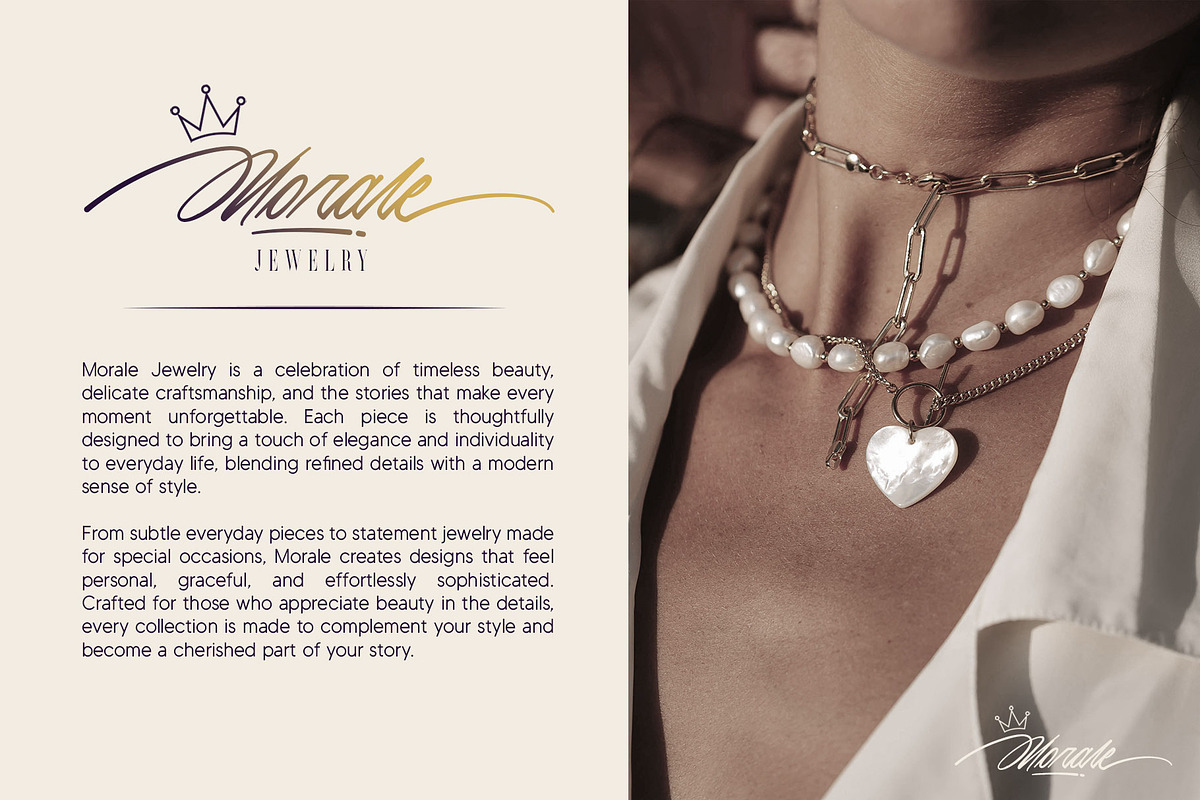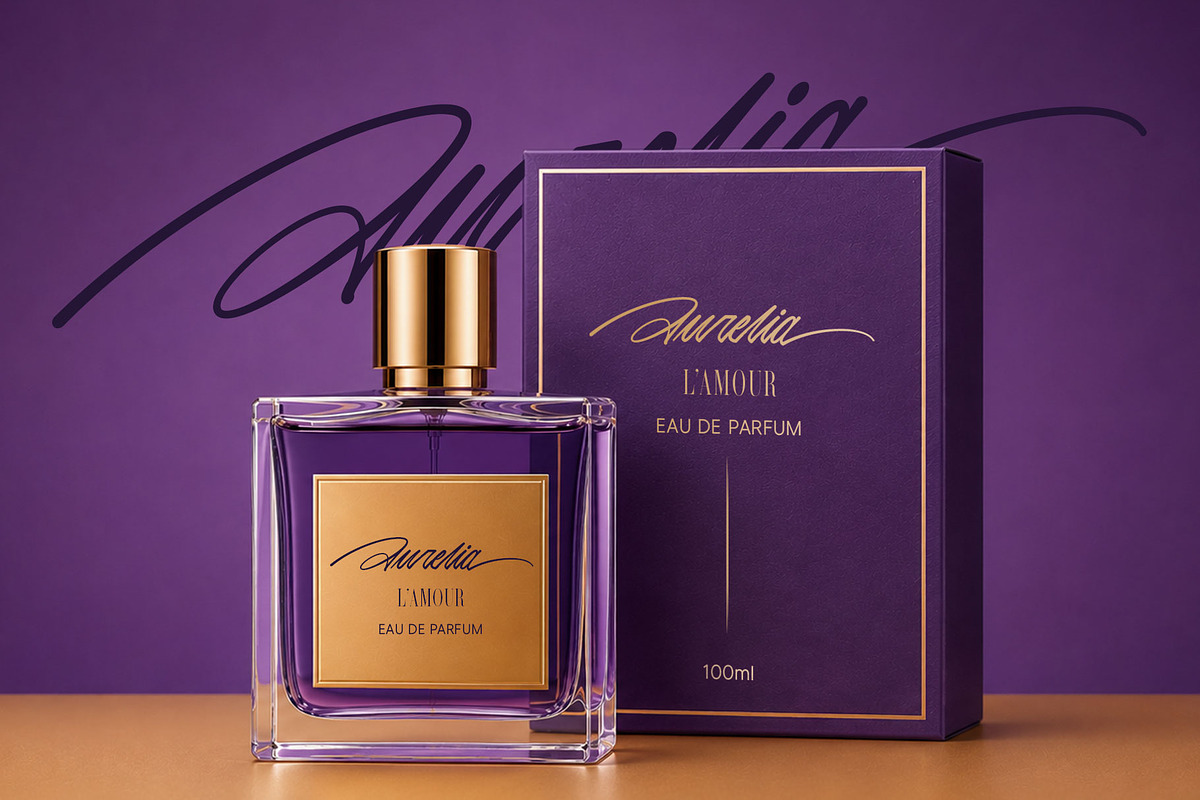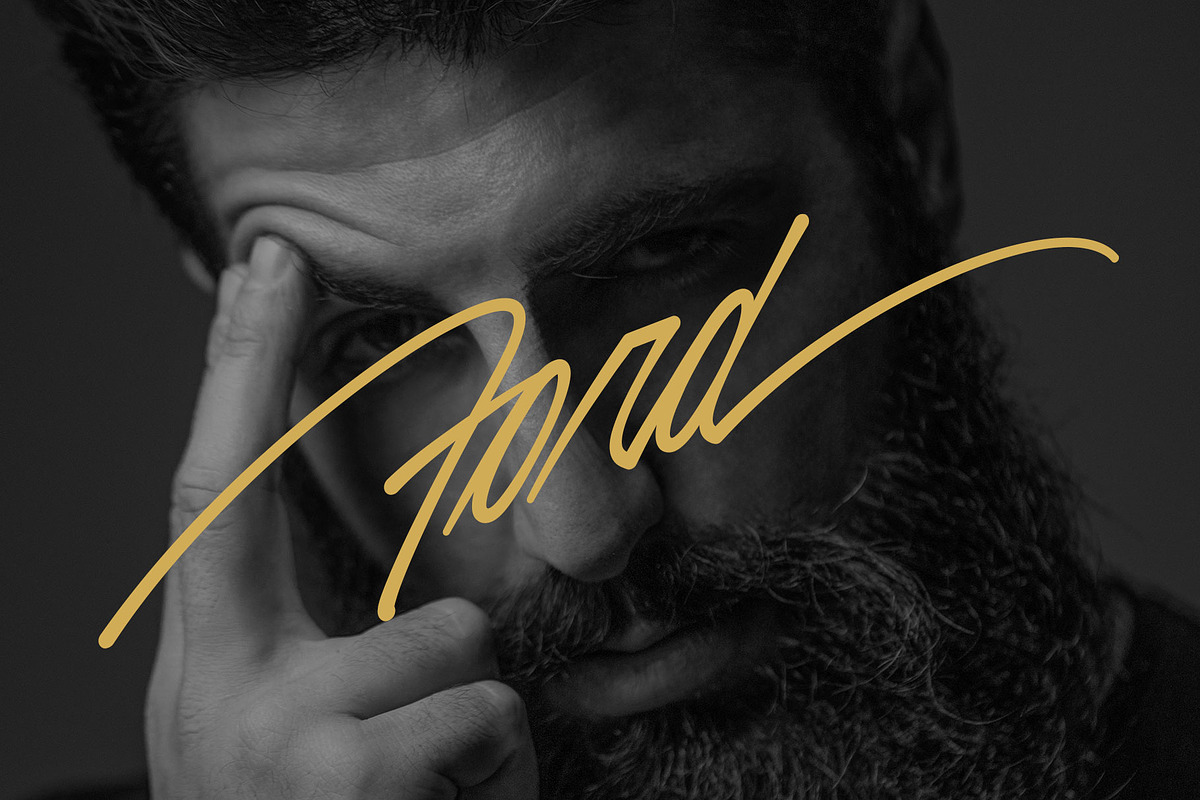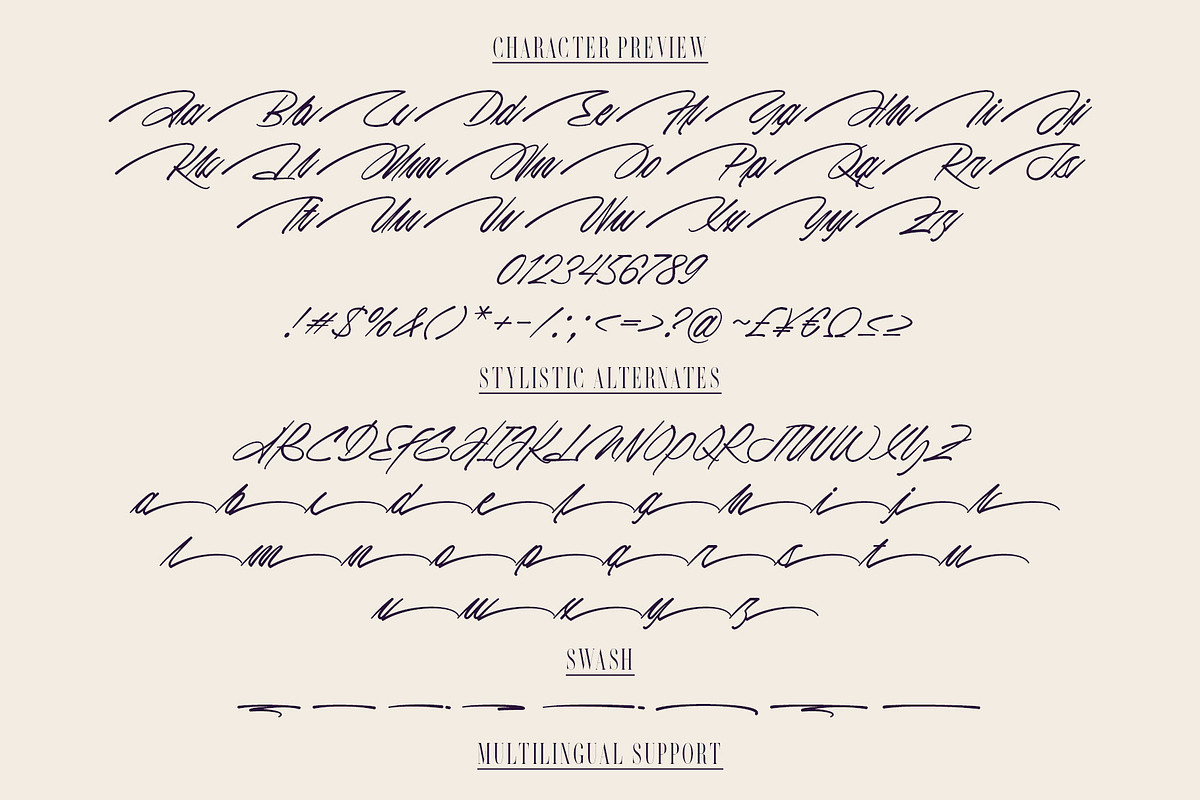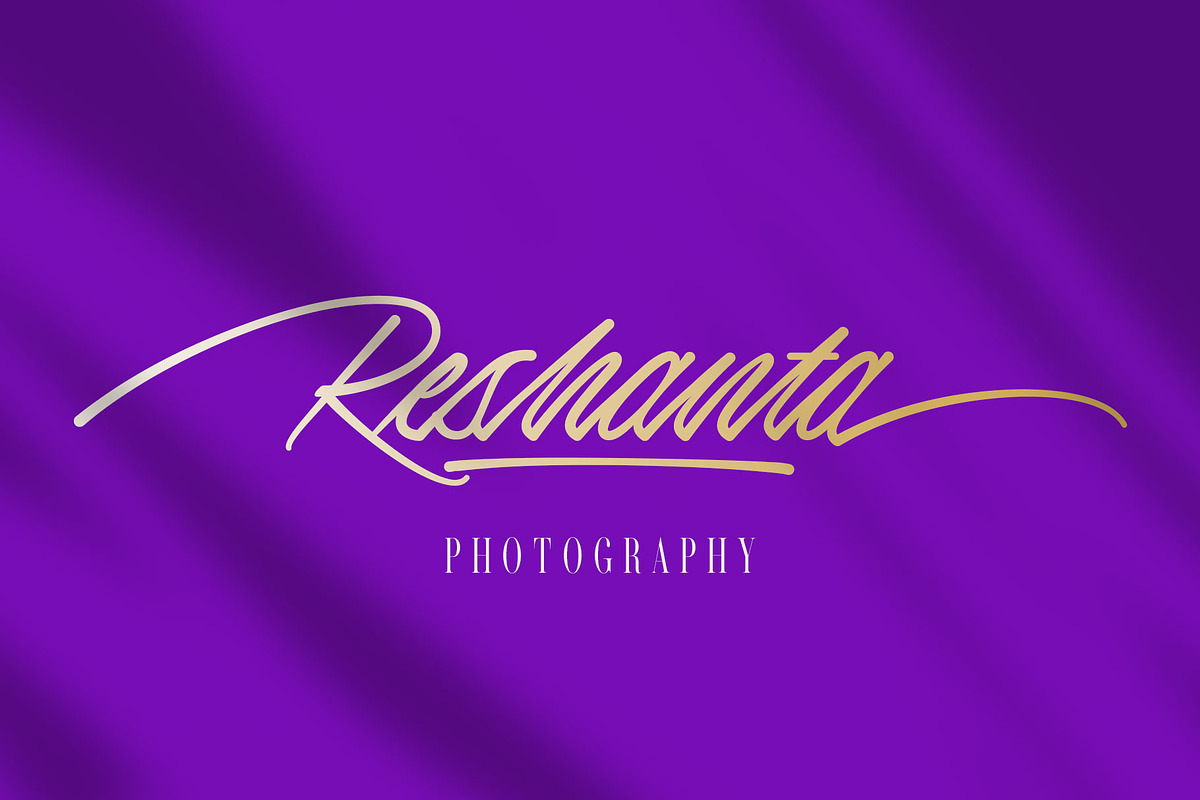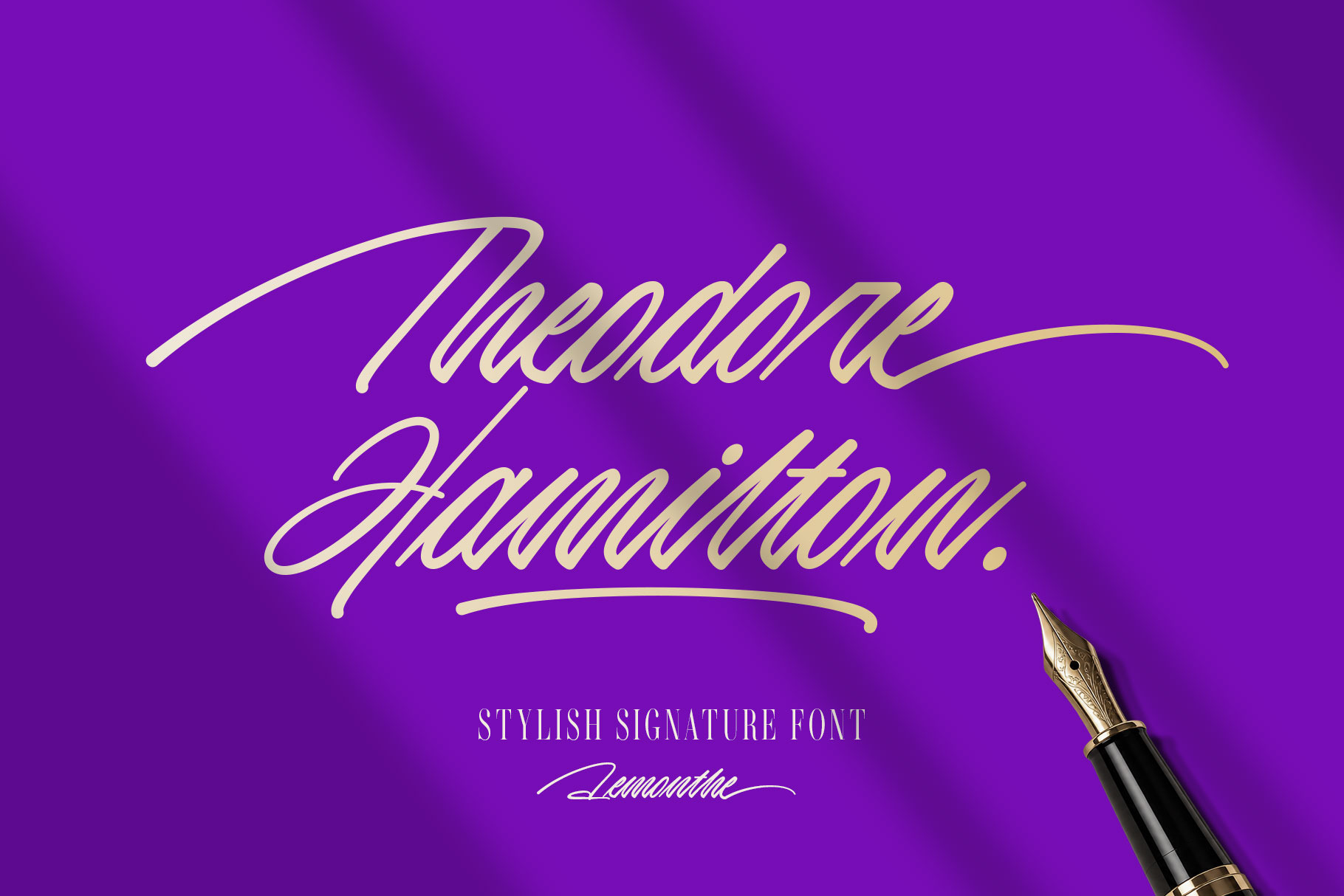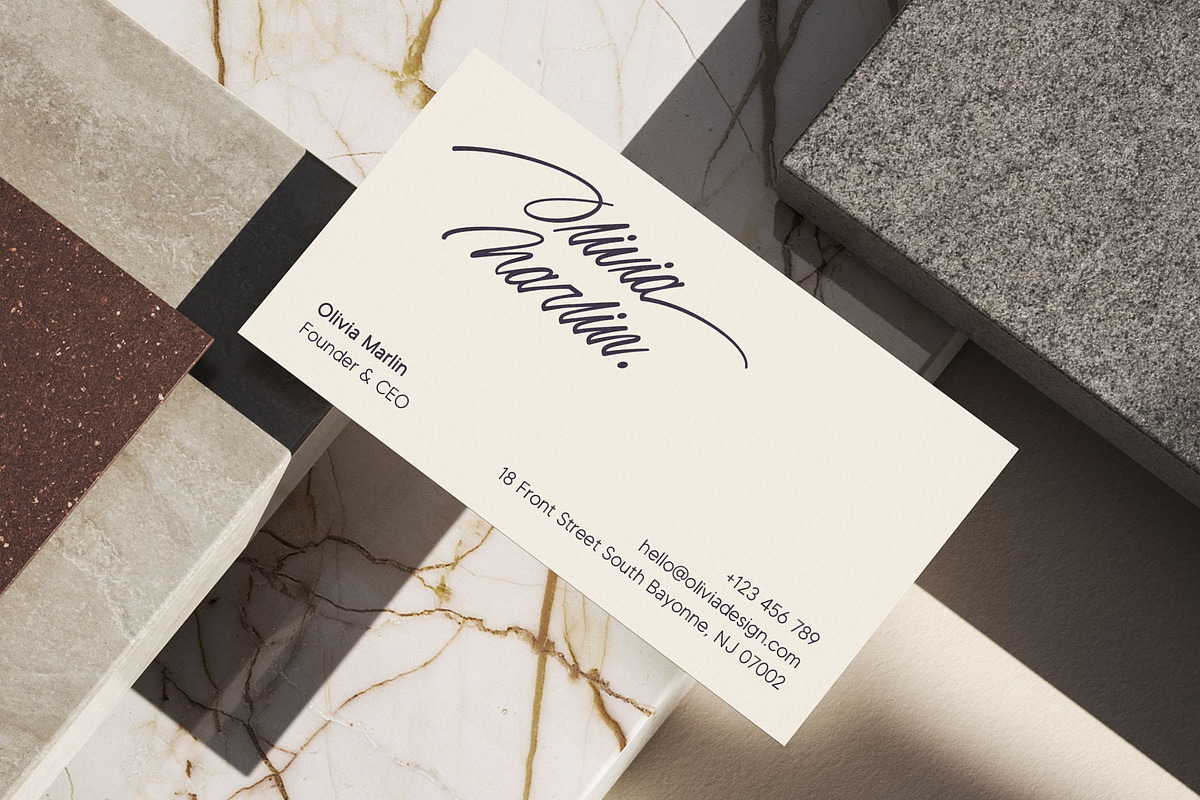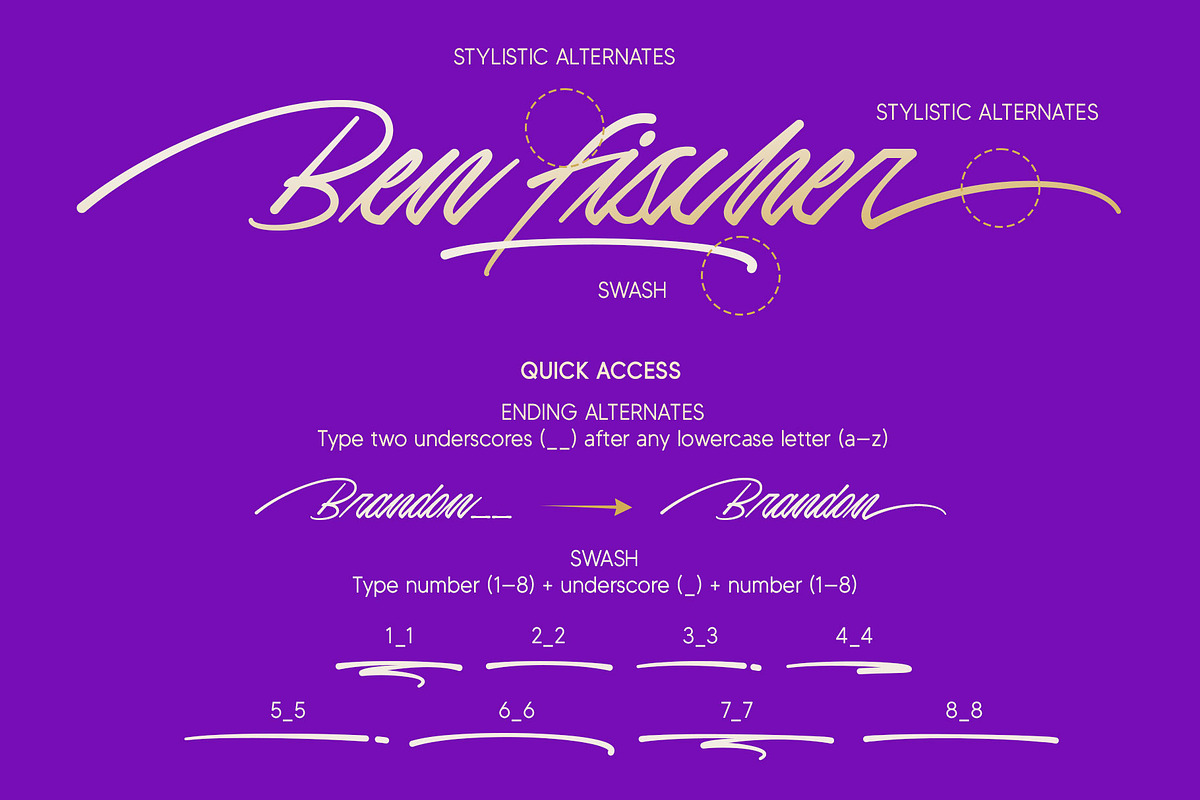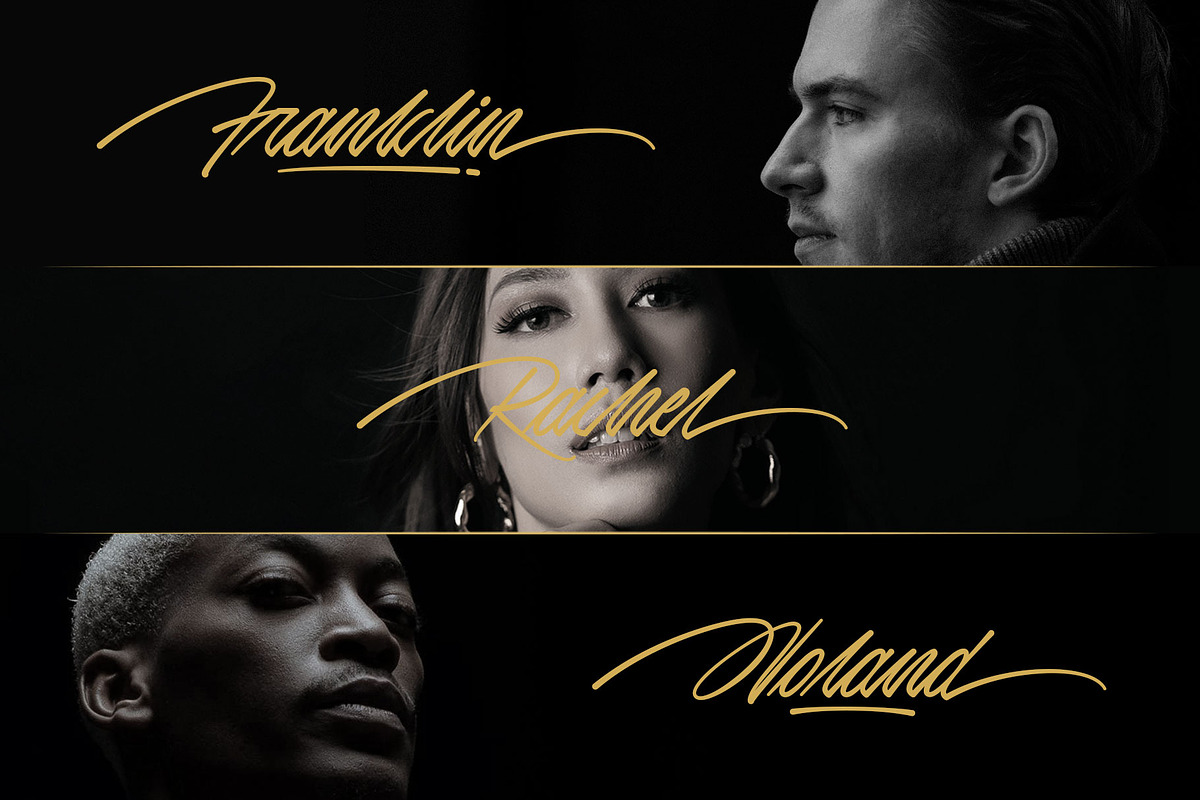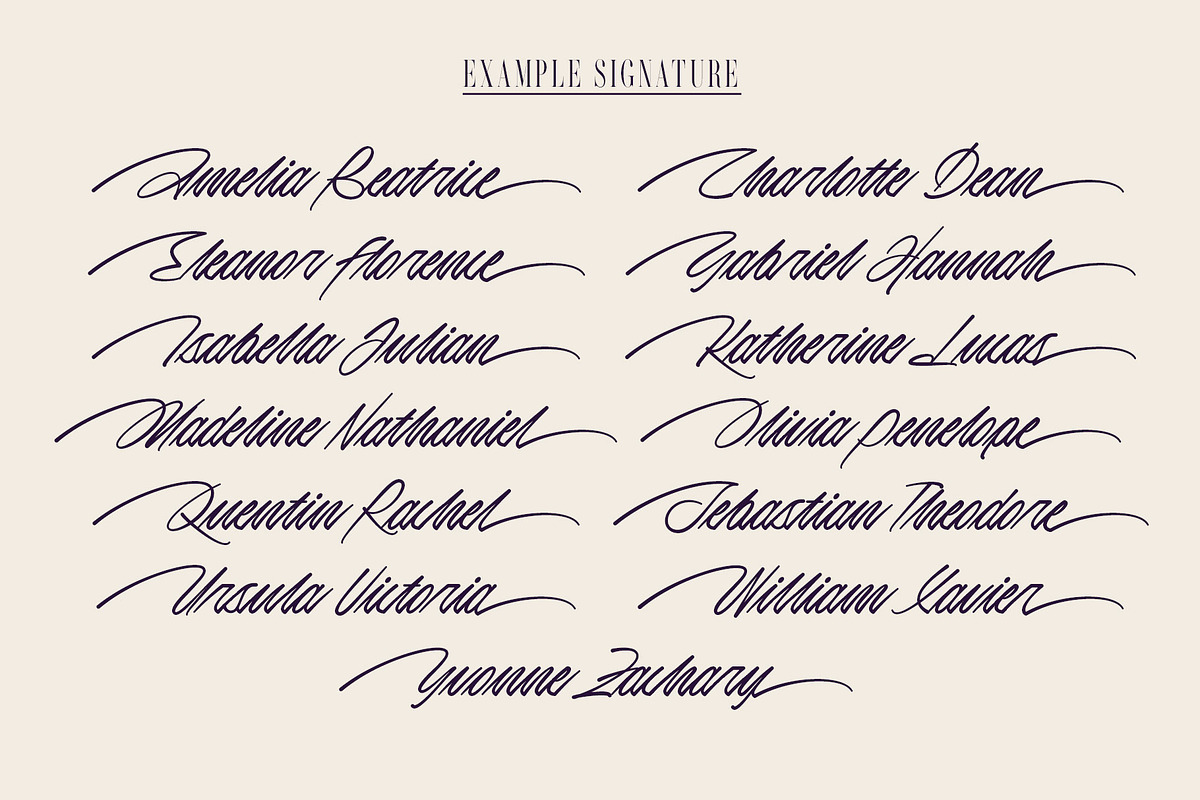
Theodore Hamilton | Signature Font
Theodore Hamilton is an elegant and expressive signature font designed to bring a sophisticated handwritten touch to your creative projects. Its flowing strokes, graceful curves, and distinctive character make it perfect for creating stylish and memorable typography. Ideal for logos, branding, fashion, beauty products, wedding invitations, stationery, packaging, social media, photography, and other luxury-inspired designs. With beautifully crafted swash and stylistic alternates, Theodore Hamilton gives you the flexibility to create unique and personalized lettering with a refined signature aesthetic.
Swash
Numerals and Punctuation
Quick Access
Stylistic Alternates: Type two underscores (__) after any lowercase letter (a–z)
Swash: Type number (1–8) + underscore (_) + number (1–8). Example: 1_1, 2_2, 3_3, 4_4, 5_5, 6_6, 7_7, 8_8